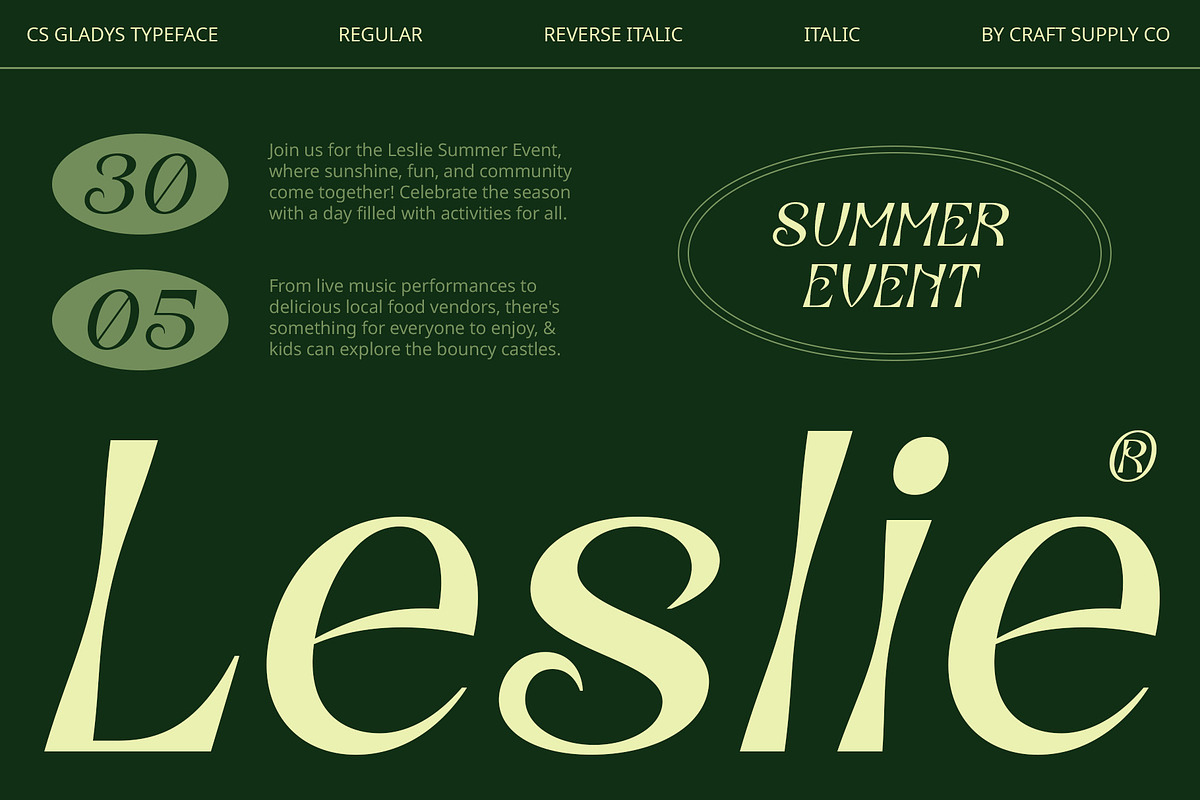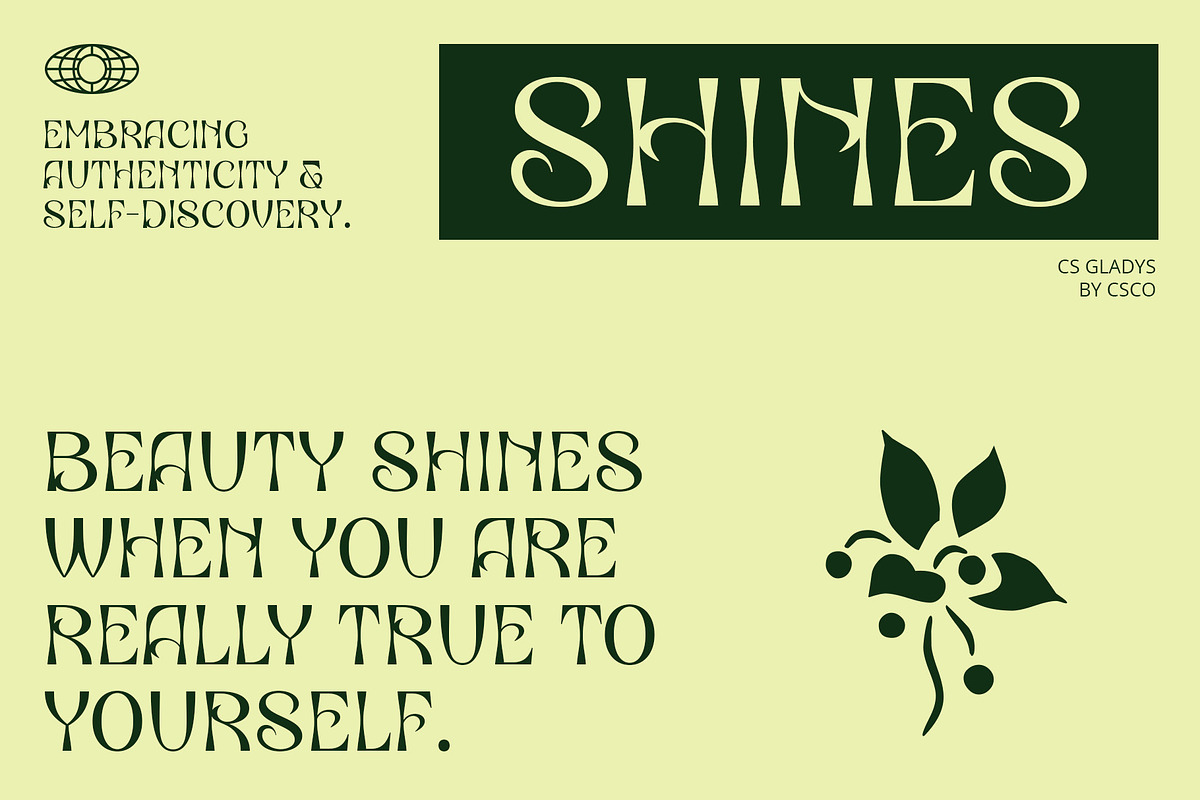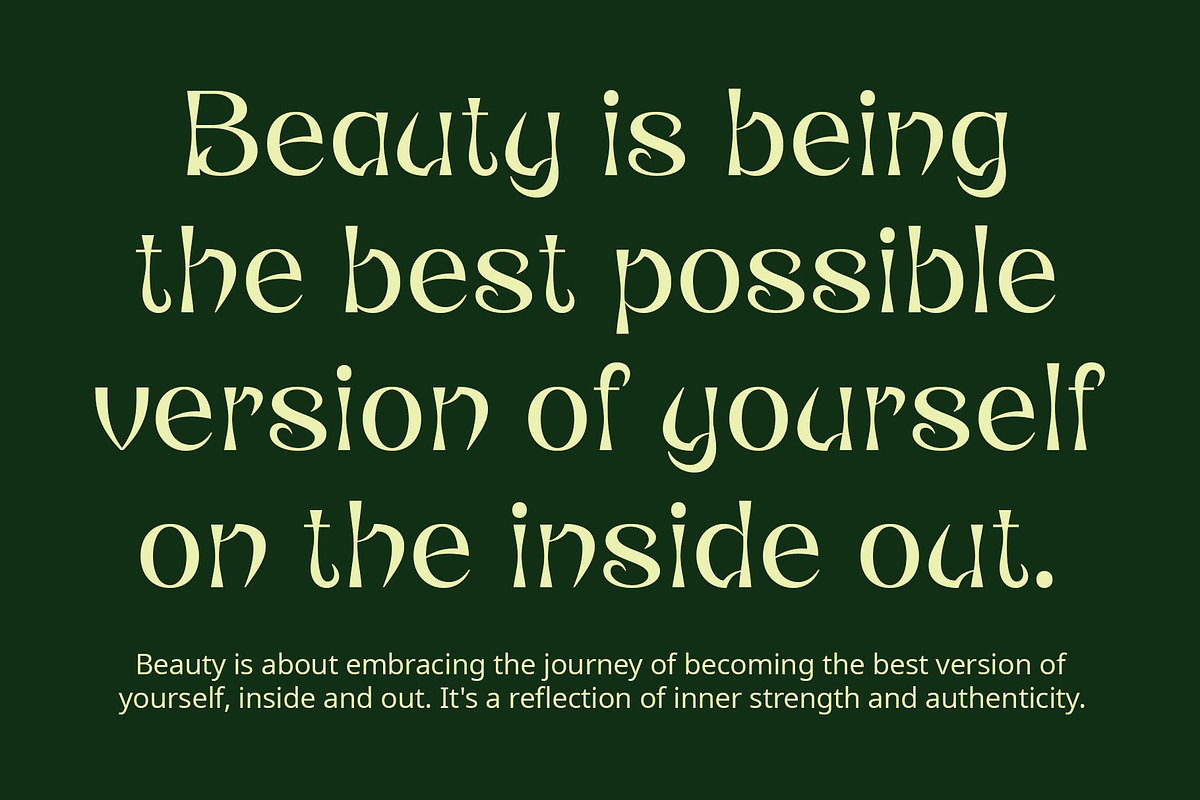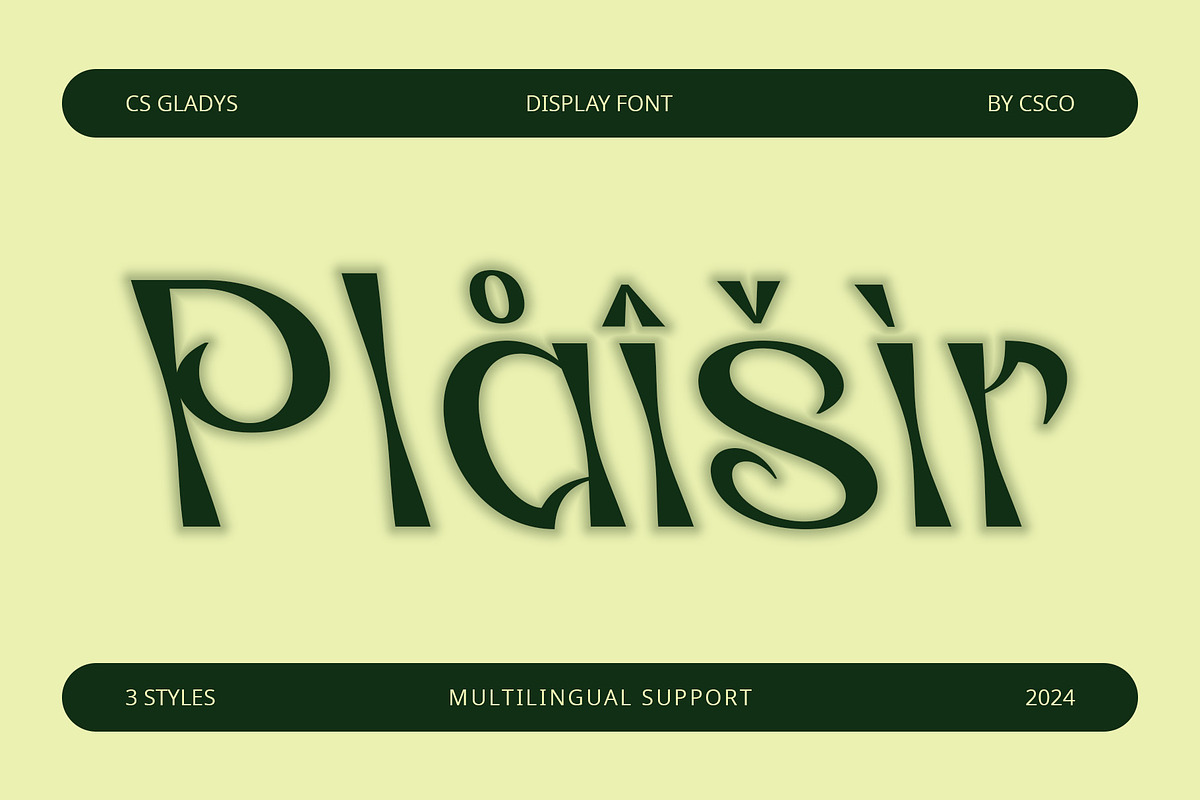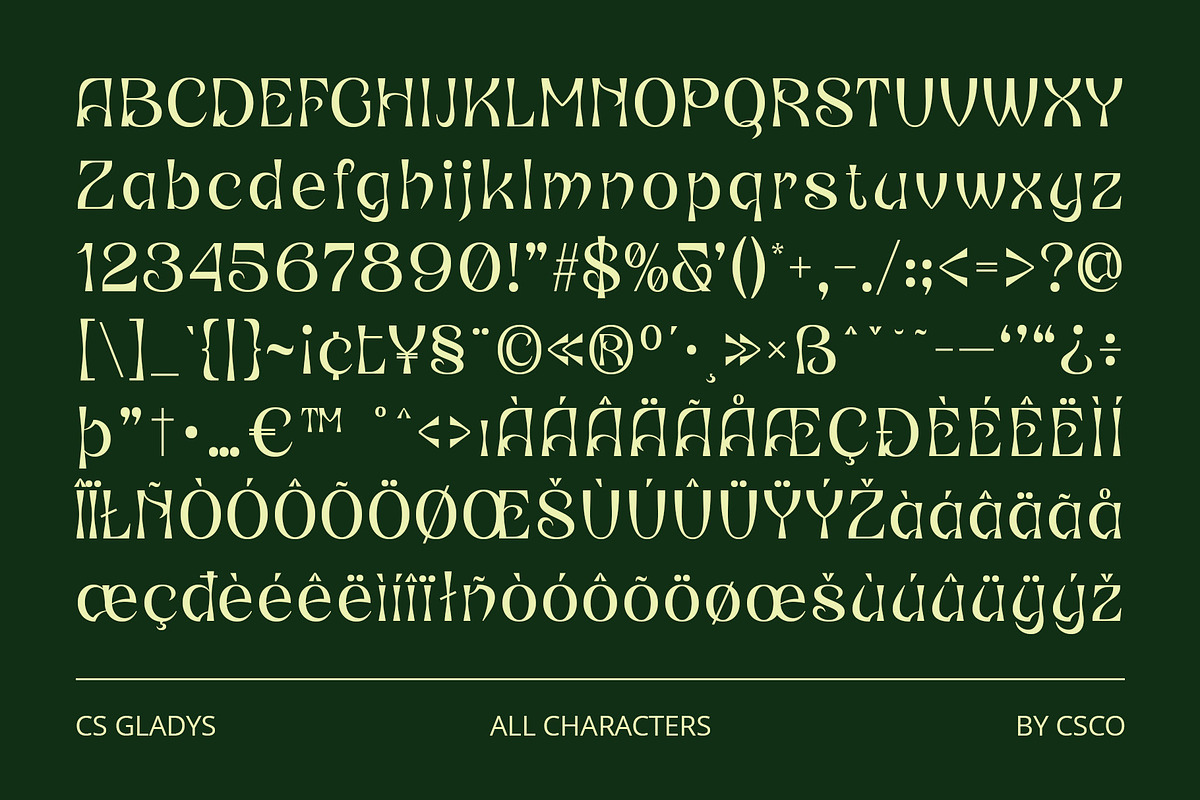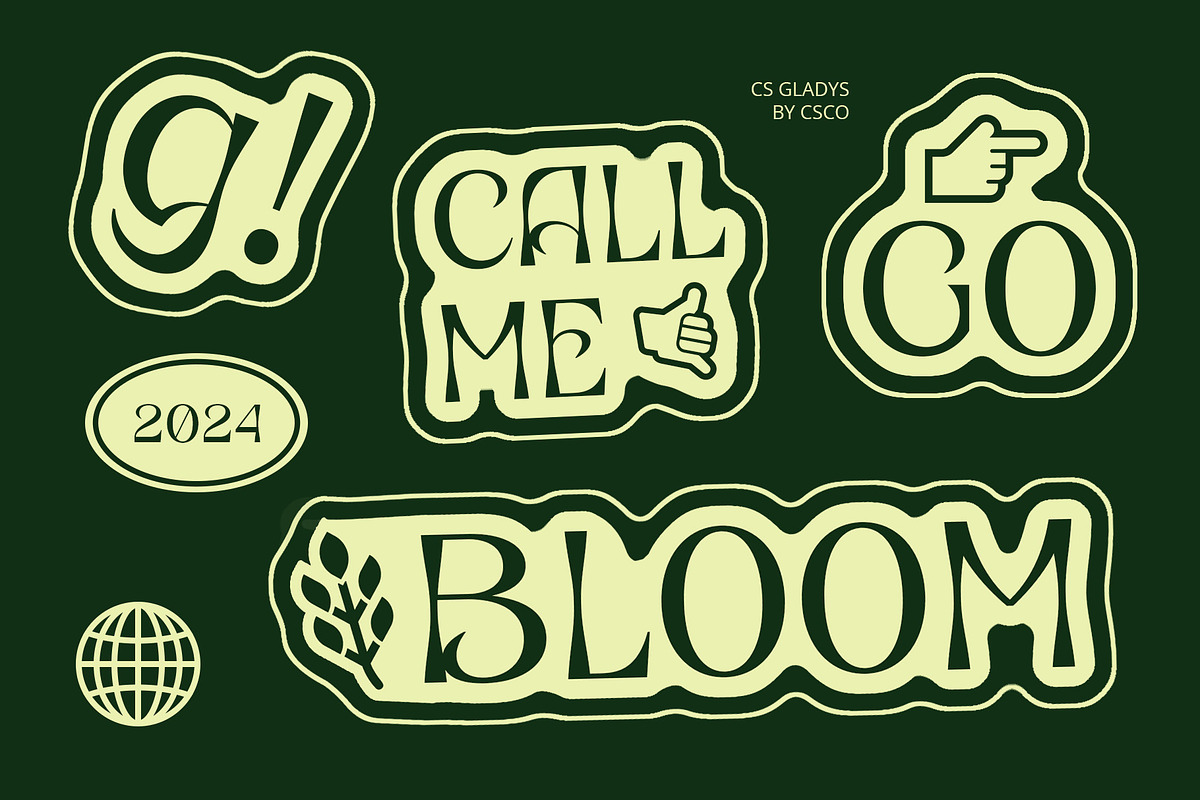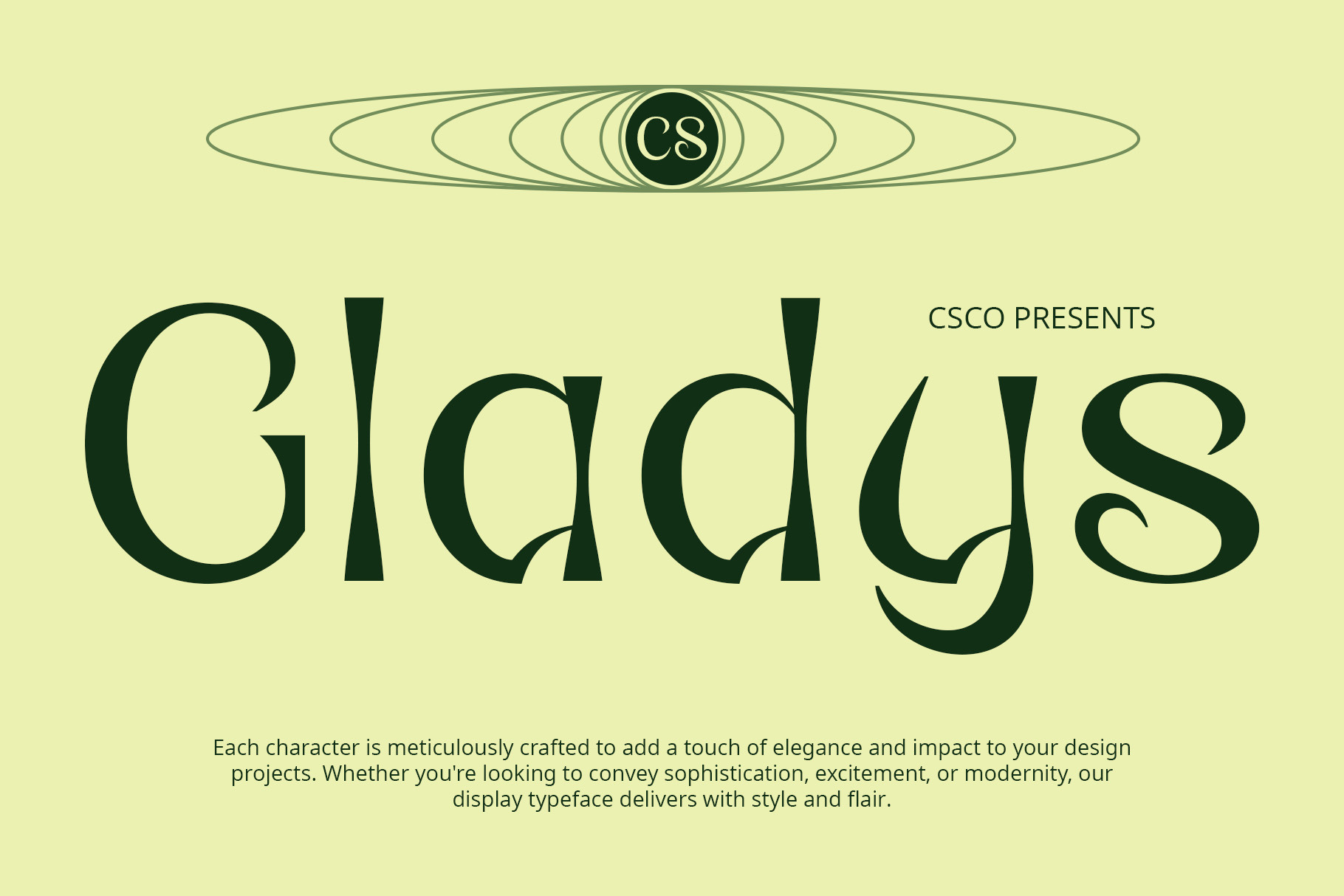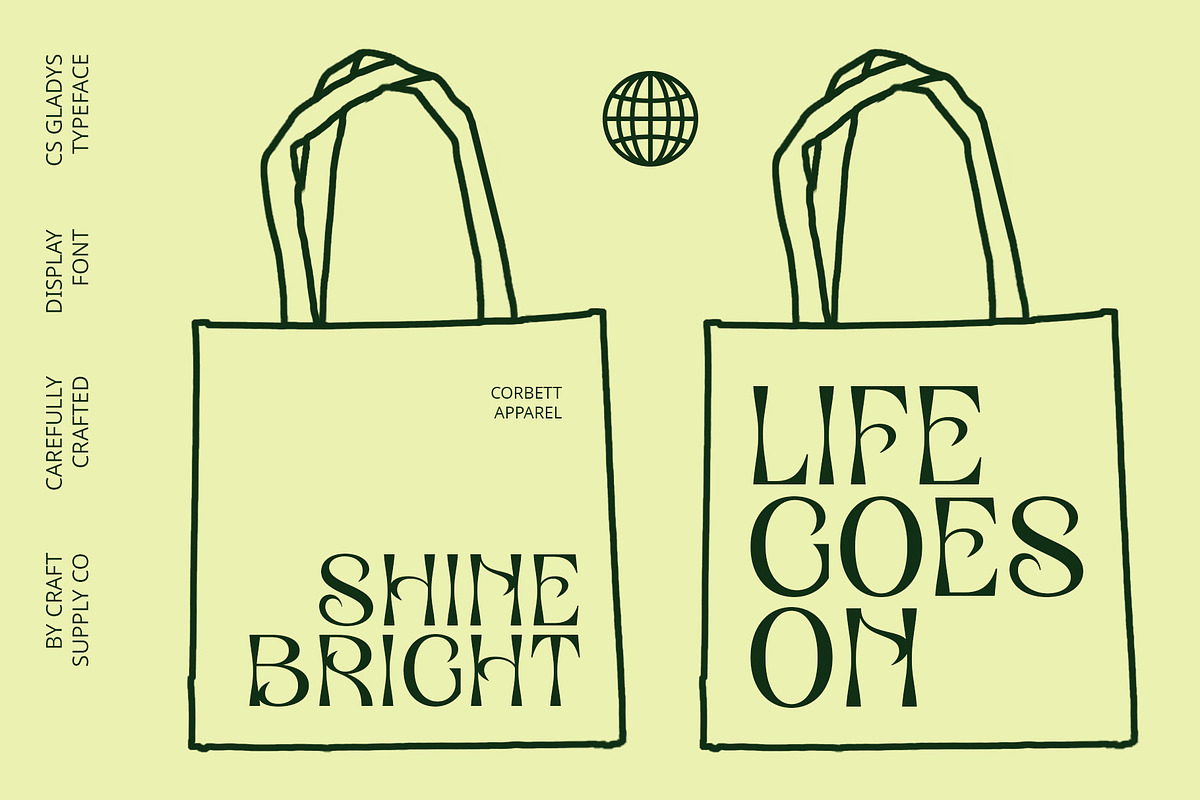
CS Gladys – Reverse Contrast Font
CS Gladys – Reverse Contrast Font: Intriguing and Distinctive Display Typeface
Unusual Contrast for Unique Aesthetic
CS Gladys is a display font with reverse contrast, showcasing unique characteristics with an intriguing contrast between thick and thin lines. This distinctive feature sets it apart from conventional serif fonts, making it an ideal choice for designs that prioritize uniqueness and a different aesthetic approach.
Bold and Eye-catching Design
The reverse contrast in CS Gladys creates a bold and eye-catching appearance, enhancing the visual impact of each character. This unconventional style adds a touch of creativity and innovation to typographic compositions, ensuring your designs stand out with a dynamic and distinctive look.
Perfect for Emphasizing Uniqueness
Ideal for posters, branding, and editorial designs, CS Gladys excels in projects that aim to emphasize uniqueness and individuality. Its unconventional contrast between thick and thin lines adds depth and character, making it a versatile choice for creating memorable visual experiences.
Make a Bold Statement
Choose CS Gladys to make a bold statement in your designs with its reverse contrast and unique aesthetic. Whether for digital or print applications, this font promises to elevate your projects with its intriguing design elements and distinctive visual appeal.
- CS Gladys Regular
- CS Gladys Italic
- CS Gladys Reverse Italic